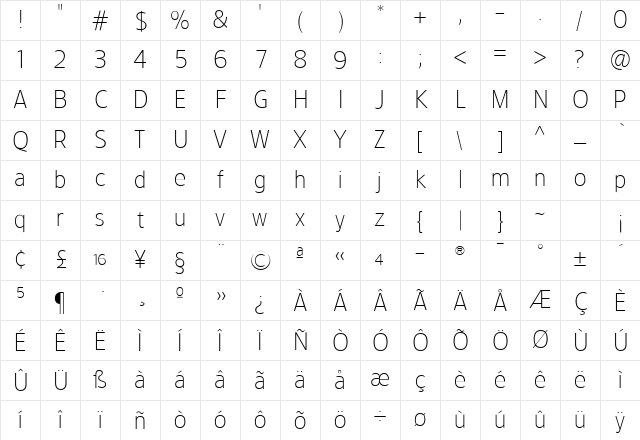
TFForeverTwo ExtraLight Free Font
TFForeverTwo ExtraLight
Foundry: J. Treacy,Treacyfaces,Inc
Design Context for TFForeverTwo
TFForeverTwo is a composed and adaptable typeface that performs quietly and consistently across a wide range of design contexts. Its slender proportions lend an understated elegance to any composition.
Pro Tip: Use TFForeverTwo in both headline and body roles to test its range before committing to a single application.